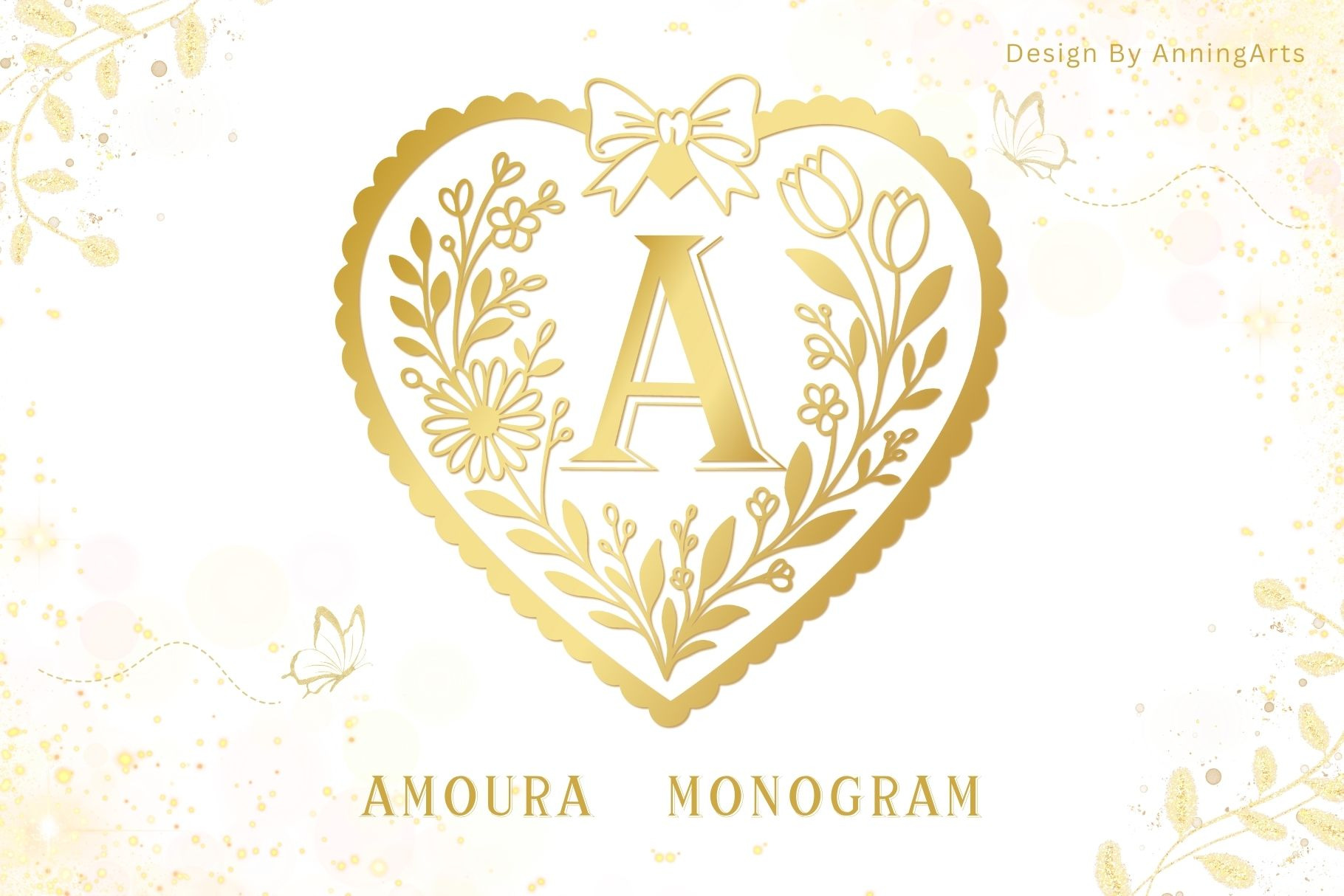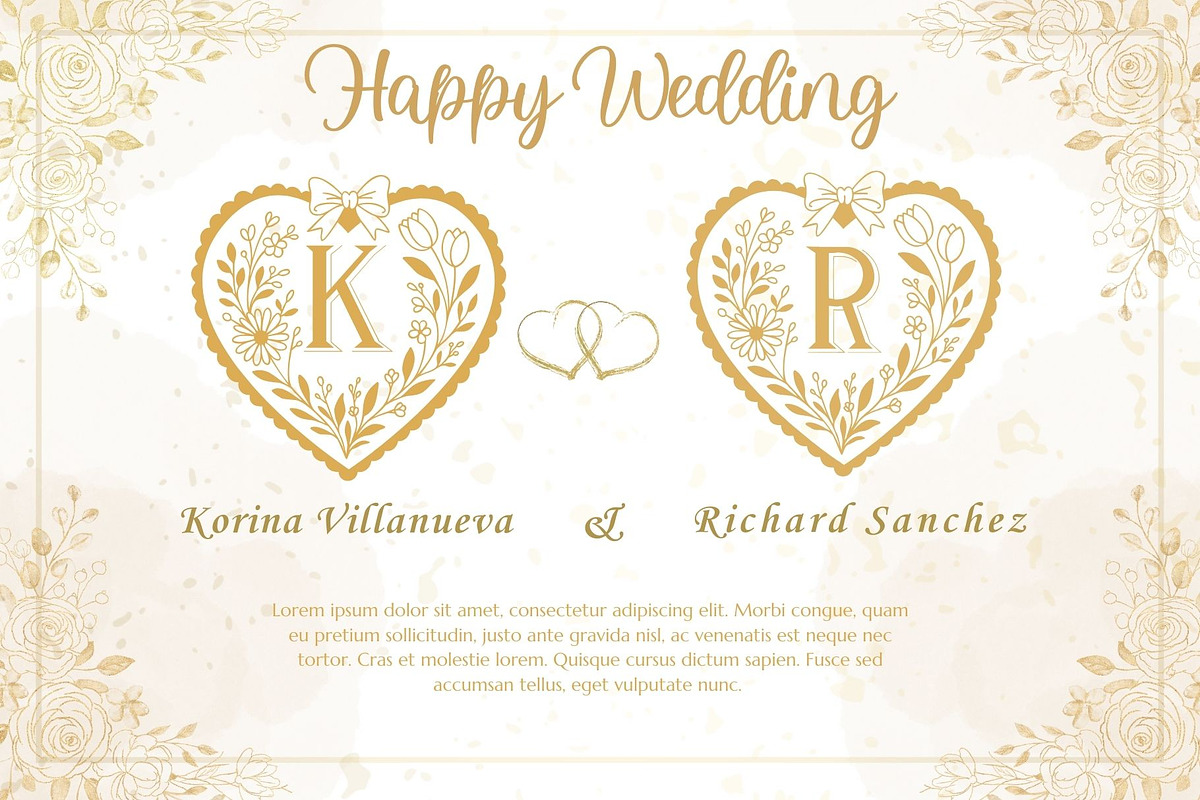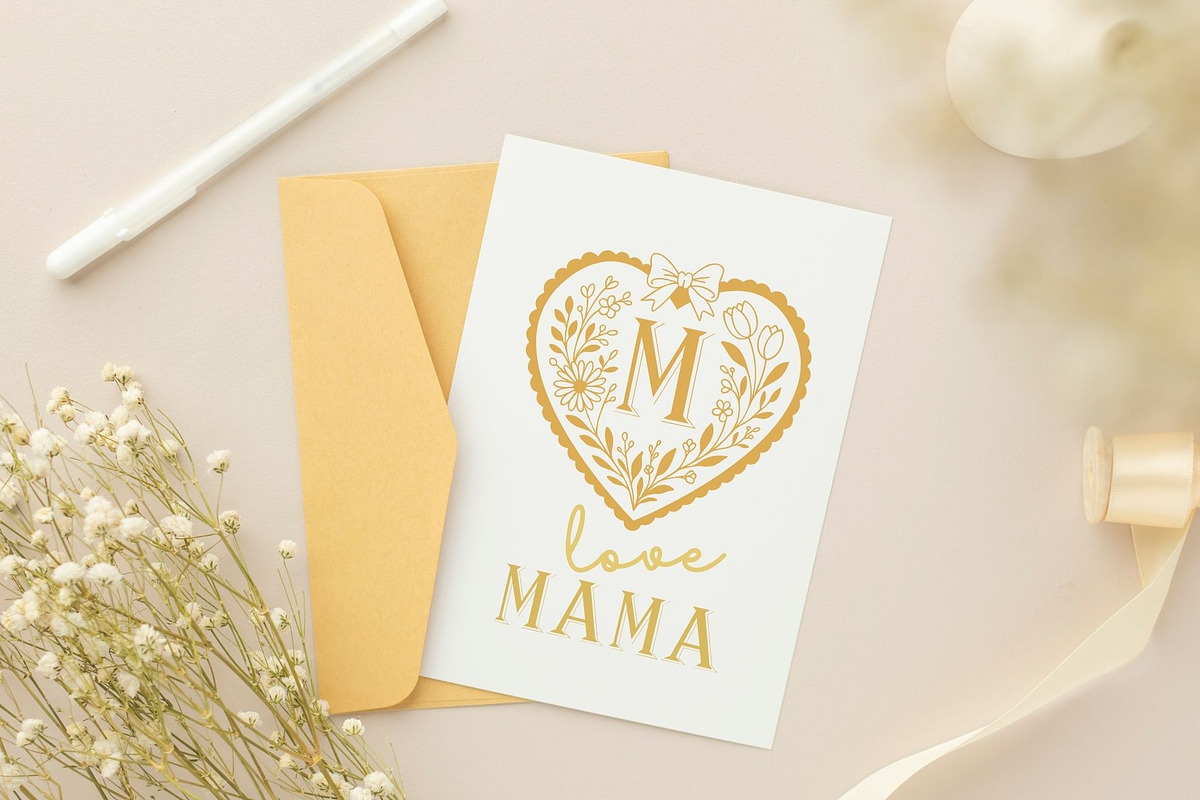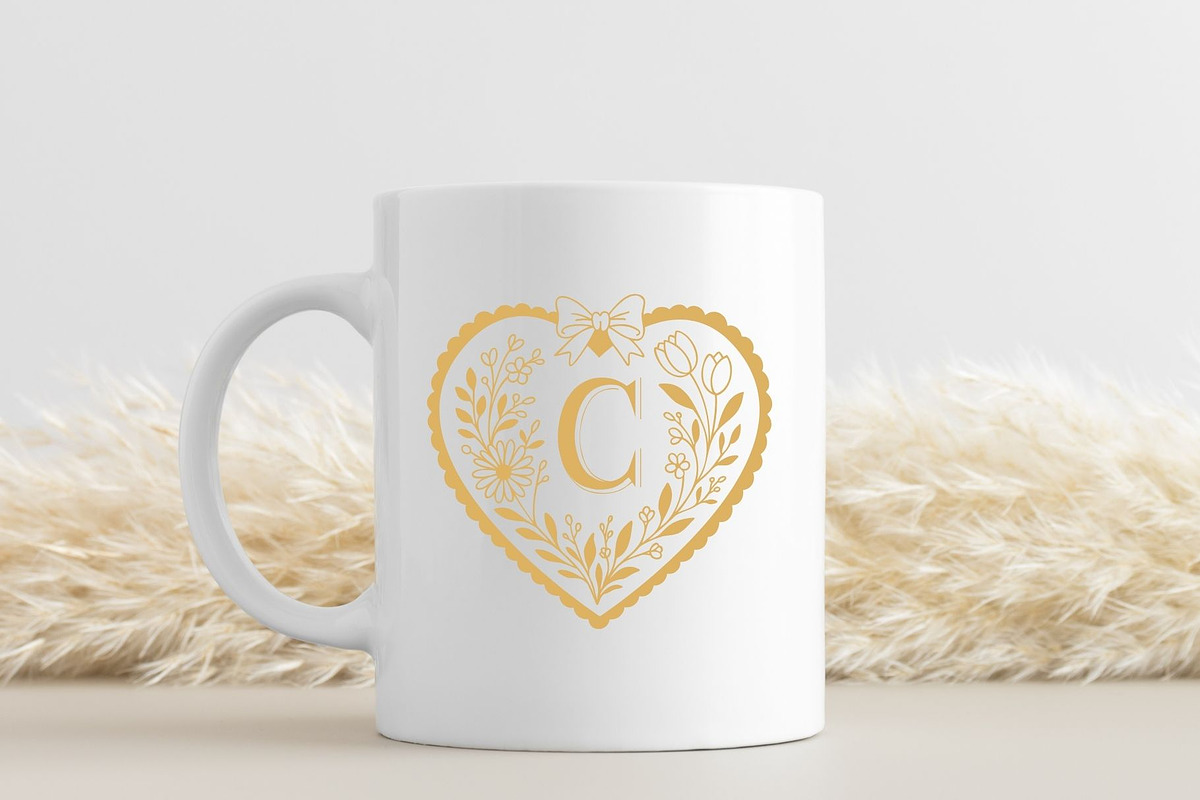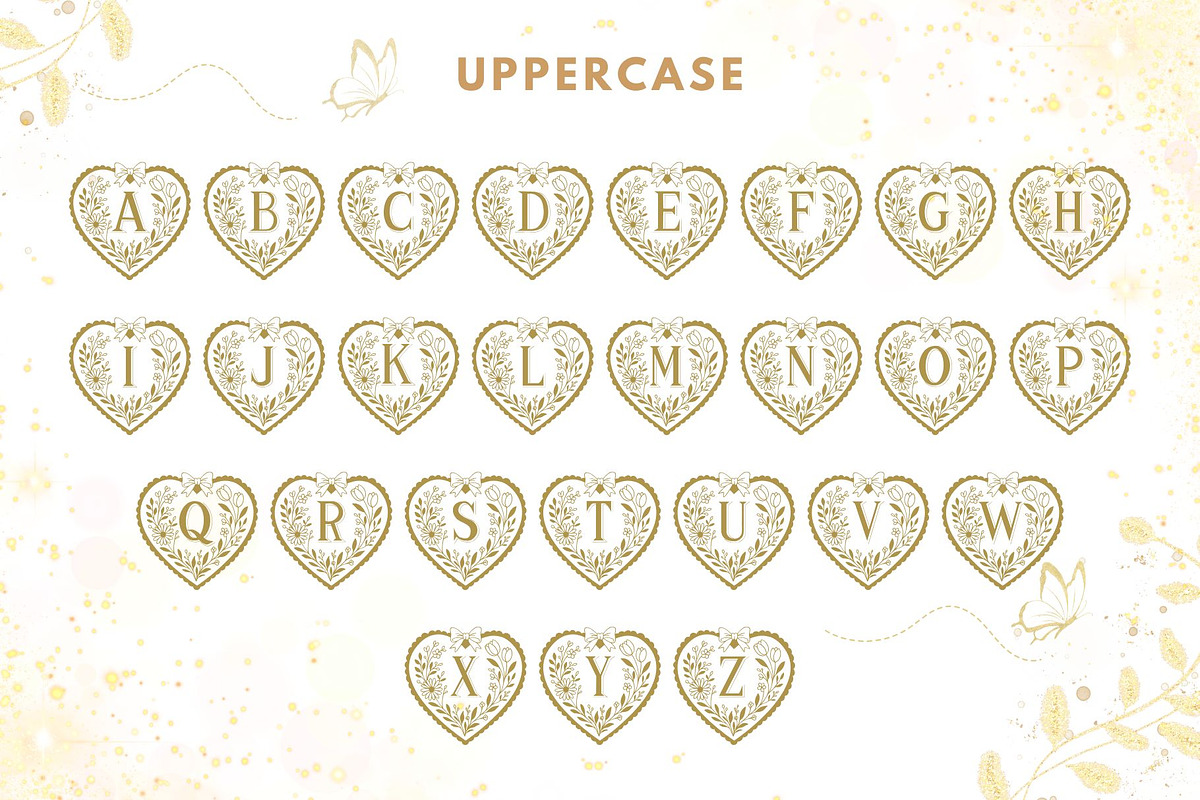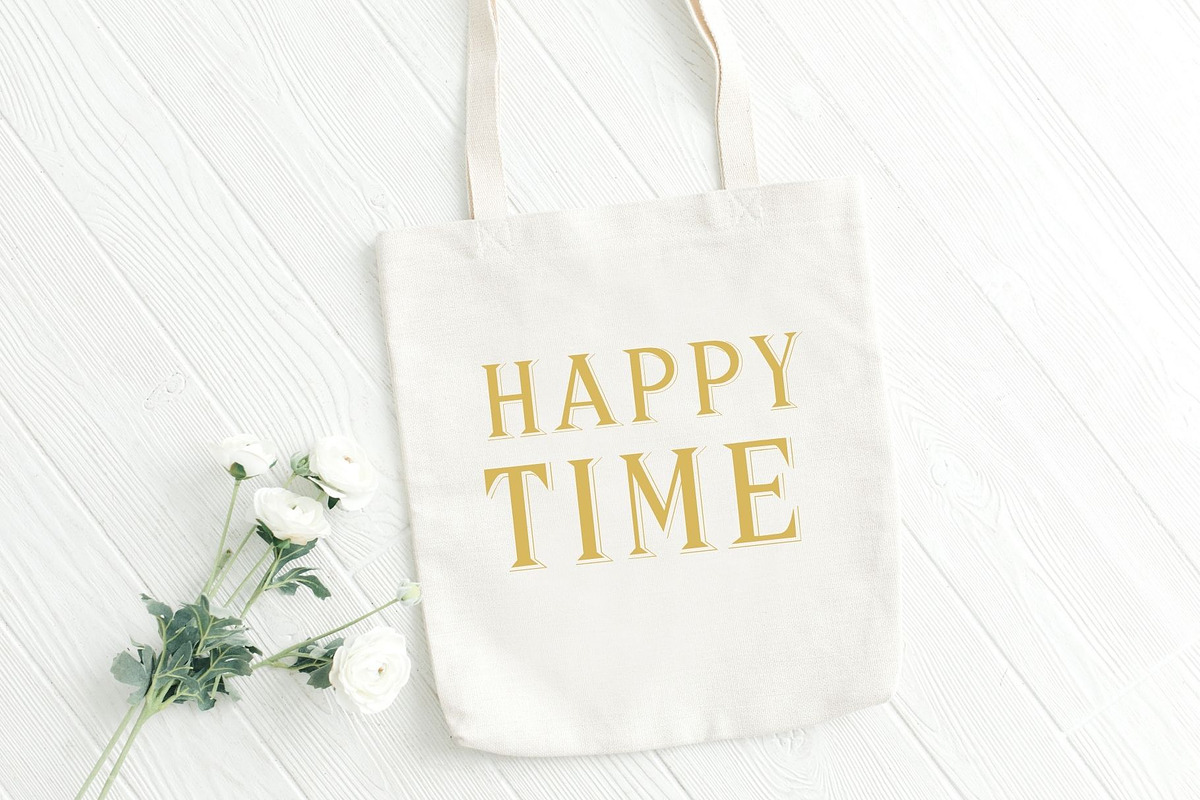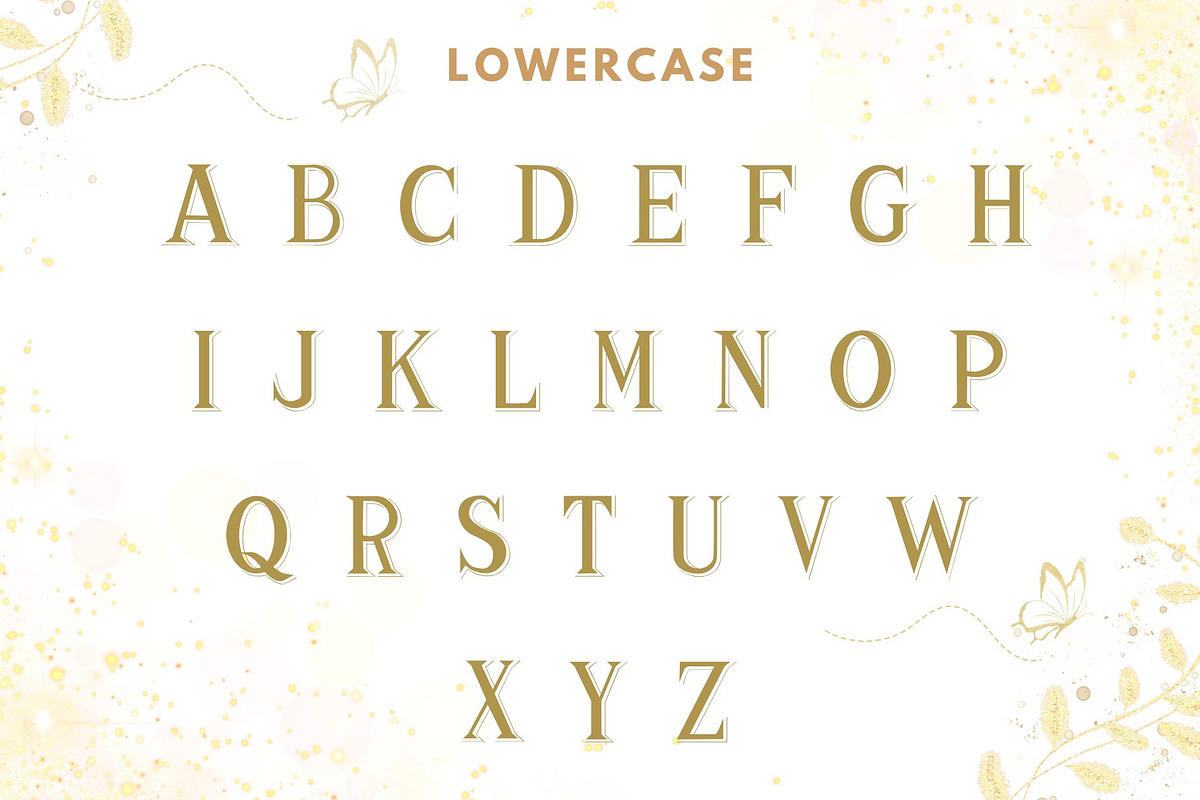
Amoura - Floral Monogram Font
Amoura is an elegant floral monogram font featuring a classic serif letterform enclosed in a heart-shaped botanical frame. With its refined lines and delicate floral arrangement, this font is perfect for wedding stationery, personalized gifts, luxury packaging, invitations, logos, stickers, and sublimation projects.